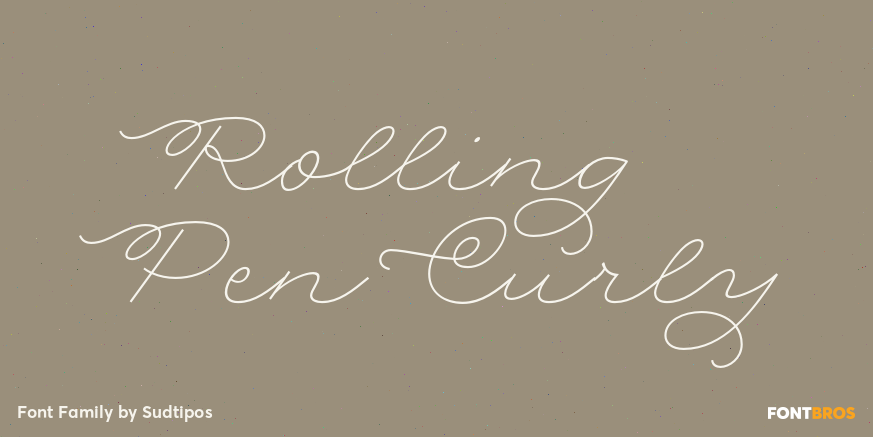
Rolling Pen Curly
About Rolling Pen Curly
After doing this for so many years, one would think my fascination with the old history of writing would have mellowed out by now. The truth is that alongside being a calligraphy history buff, I\’m a pop technology freak. Maybe even keener on the tech…